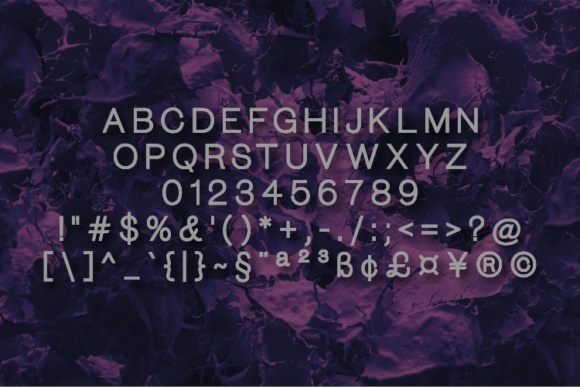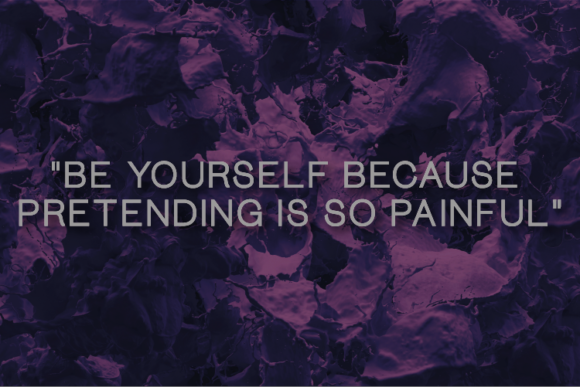
Introduction to Katheline Font
Katheline is a minimal and neat sans serif font.
Fall in love with its simplicity and add it to each of your creative ideas .
Key Features of Katheline Font
Why Choose Katheline Font?
Katheline Font offers exceptional quality and versatility, making it a valuable addition to your design toolkit. Whether you’re creating for personal projects or commercial use, Katheline Font delivers professional results.